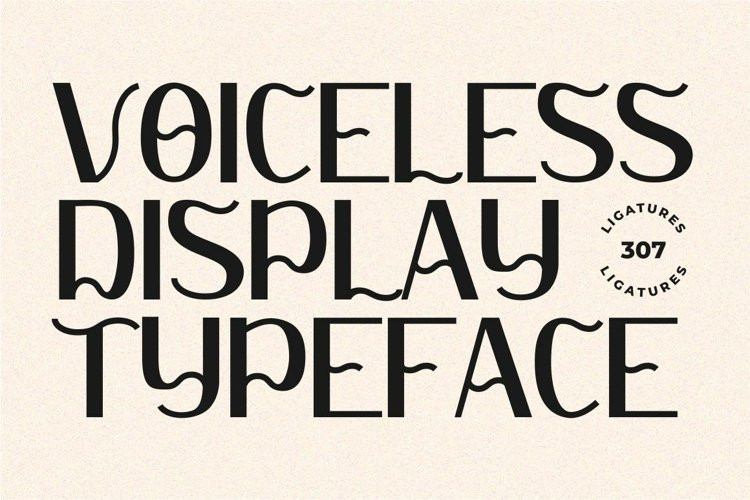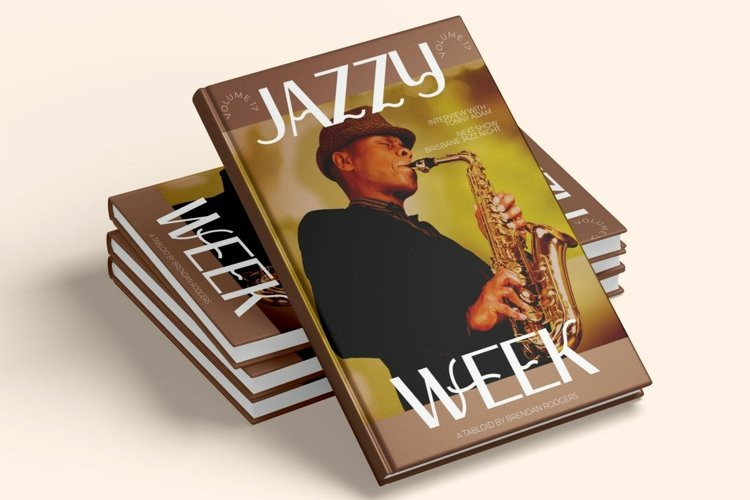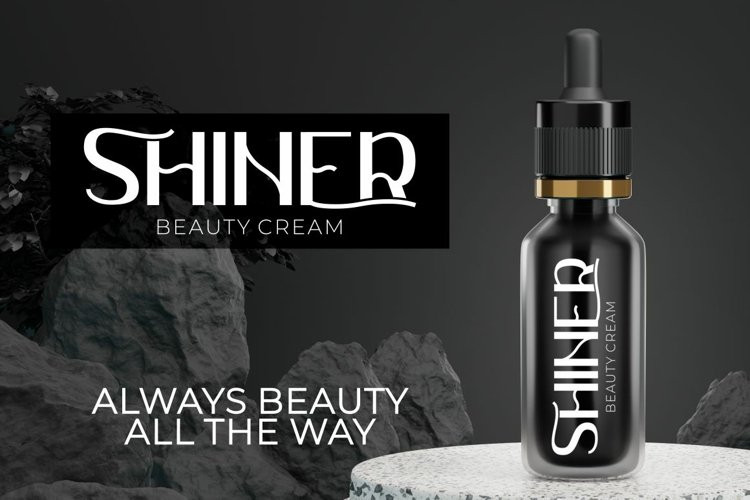
Voiceless Font
Voiceless FontVOICELESS – DISPLAY TYPEFACE FONT. Voiceless is a family Display font designed with carefully handcrafted, this font is a tall and skinny font perfect for your home decor and craft designs
Voiceless inspired by music design, Voiceless is a vintage font that is perfect for story books, illustrations, comic books, t-shirts, posters, greeting cards, logos, branding, stickers, svg, crafting and all for display purposes.
The alternative characters were divided into several Open Type features such as Swash, Stylistic Sets, Stylistic Alternates, Contextual Alternates, and Ligature. The Open Type features can be accessed by using Open Type savvy programs such as Adobe Illustrator, Adobe InDesign, Adobe Photoshop Corel Draw X version, And Microsoft Word. This font is also support multi language.